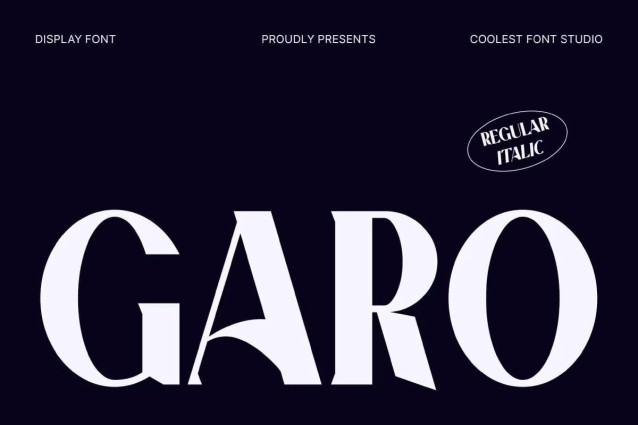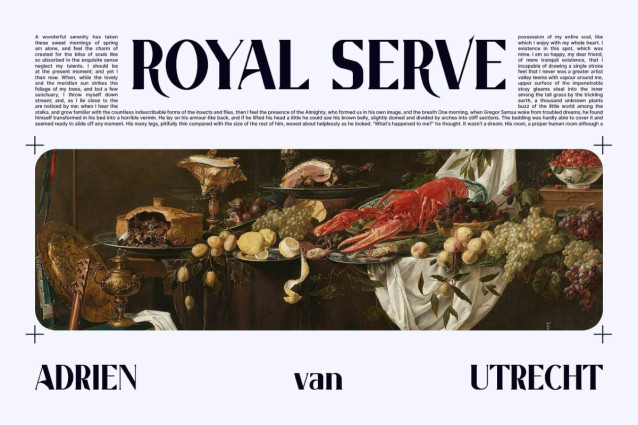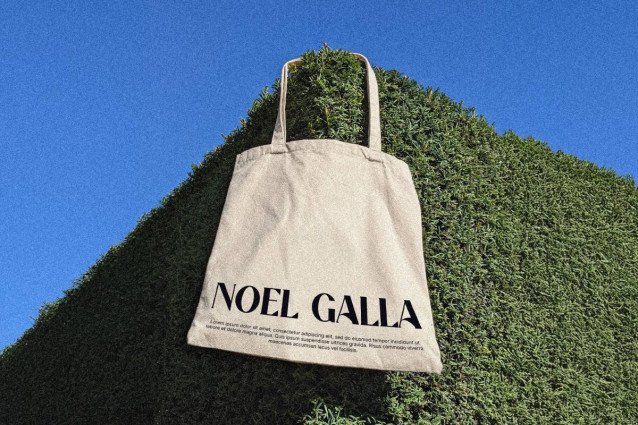
GARO Font
Garo Font is a refined modern serif display typeface designed to bring elegance, power, and personality into every visual project. With its sharp contrast, expressive curves, and contemporary editorial character, this font stands out beautifully across branding, logos, posters, packaging, magazine layouts, and digital content. Available in both Regular and Italic styles, Garo Font offers versatility for designers who seek a premium typeface that feels artistic yet highly professional.
Whether used for luxury branding, creative advertising, social media graphics, or large-format headlines, Garo Font delivers a bold visual presence that elevates the entire design. Its unique balance of sophistication and modern flair makes it an excellent choice for designers, marketers, agencies, publishers, and businesses wanting impactful typography that communicates creativity, confidence, and style.